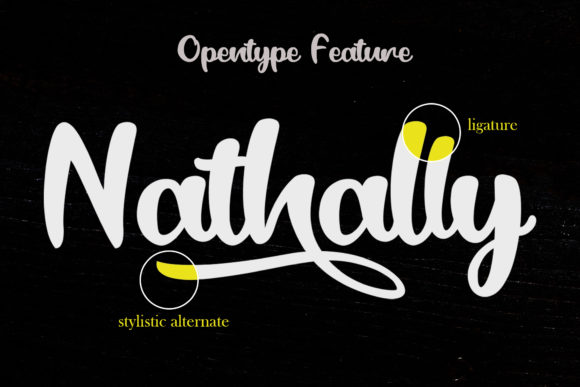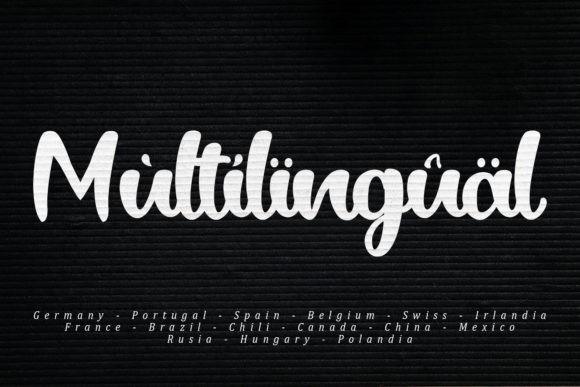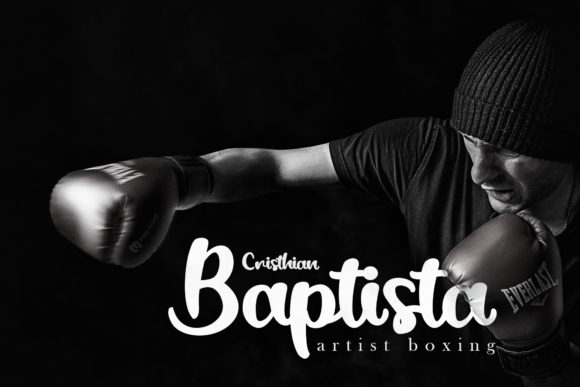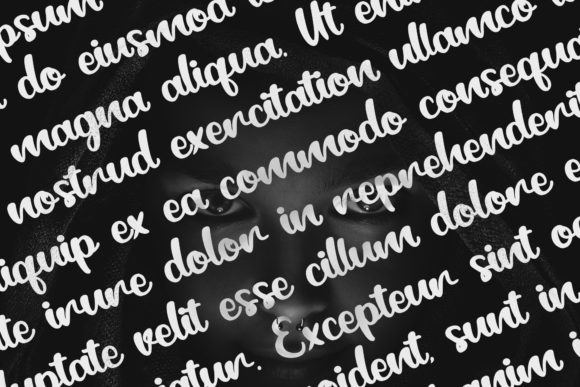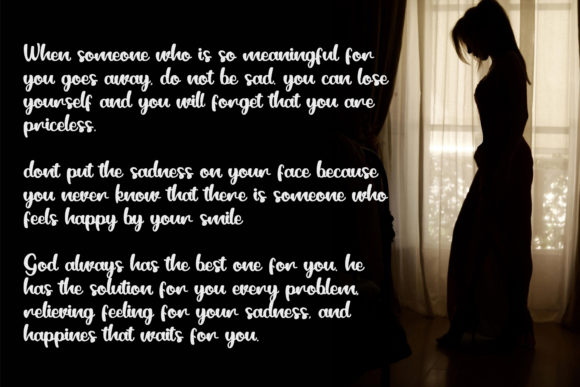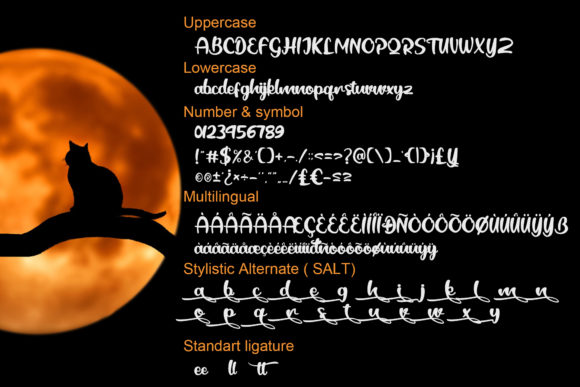
Unleash Your Creativity with Black Catty Script Font
Are you tired of using the same old fonts in your design projects? Do you want to add a personal touch that sets your work apart from the rest? Look no further than the Black Catty Script Font! This fun and cool script font is perfect for designers and crafters who want to infuse their projects with an authentic vibe.
What is Black Catty Script Font?
Black Catty is a unique script font that is sure to capture the attention of your audience. With its flowing lines and authentic feel, this font is perfect for a wide range of design projects, from invitations and greeting cards to branding and advertising materials. Whether you’re a professional designer or a DIY crafter, Black Catty Script Font is a versatile and fun font that can help you achieve your creative vision.
Key Features of Black Catty Script Font
- Authentic Vibe: Black Catty Script Font has an authentic, hand-written feel that adds a personal touch to any design project.
- Fun and Cool: This font is perfect for designers and crafters who want to add a fun and playful touch to their work.
- Versatile: Black Catty Script Font can be used for a wide range of design projects, from formal invitations to casual social media graphics.
- Easily Readable: Despite its script style, Black Catty is easy to read, making it perfect for both digital and print applications.
Uses for Black Catty Script Font
Black Catty Script Font is perfect for a wide range of design projects, including:
- Invitations: Use Black Catty to create beautiful, one-of-a-kind invitations for weddings, parties, and other special events.
- Greeting Cards: Add a personal touch to your greeting cards with this fun and authentic script font.
- Branding: Use Black Catty to create a unique and memorable brand identity for your business or product.
- Social Media Graphics: Add a touch of personality to your social media graphics with Black Catty Script Font.
- DIY Crafts: Use Black Catty to add a personal touch to your DIY craft projects, such as handmade cards, gift tags, and more.
Tips for Using Black Catty Script Font
Here are a few tips for getting the most out of Black Catty Script Font:
- Pair with Other Fonts: Experiment with pairing Black Catty with other fonts to create a unique and visually appealing design.
- Use in Combination with Images: Use Black Catty in combination with images or graphics to add an extra layer of interest to your design.
- Experiment with Colors: Don’t be afraid to experiment with different colors and textures to add depth and interest to your design.
Black Catty Script Font is a fun and cool script font that is perfect for designers and crafters who want to add a personal touch to their design projects. With its authentic vibe and versatile uses, this font is sure to become a staple in your design toolkit. So why wait? Download Black Catty Script Font today and start unleashing your creativity!